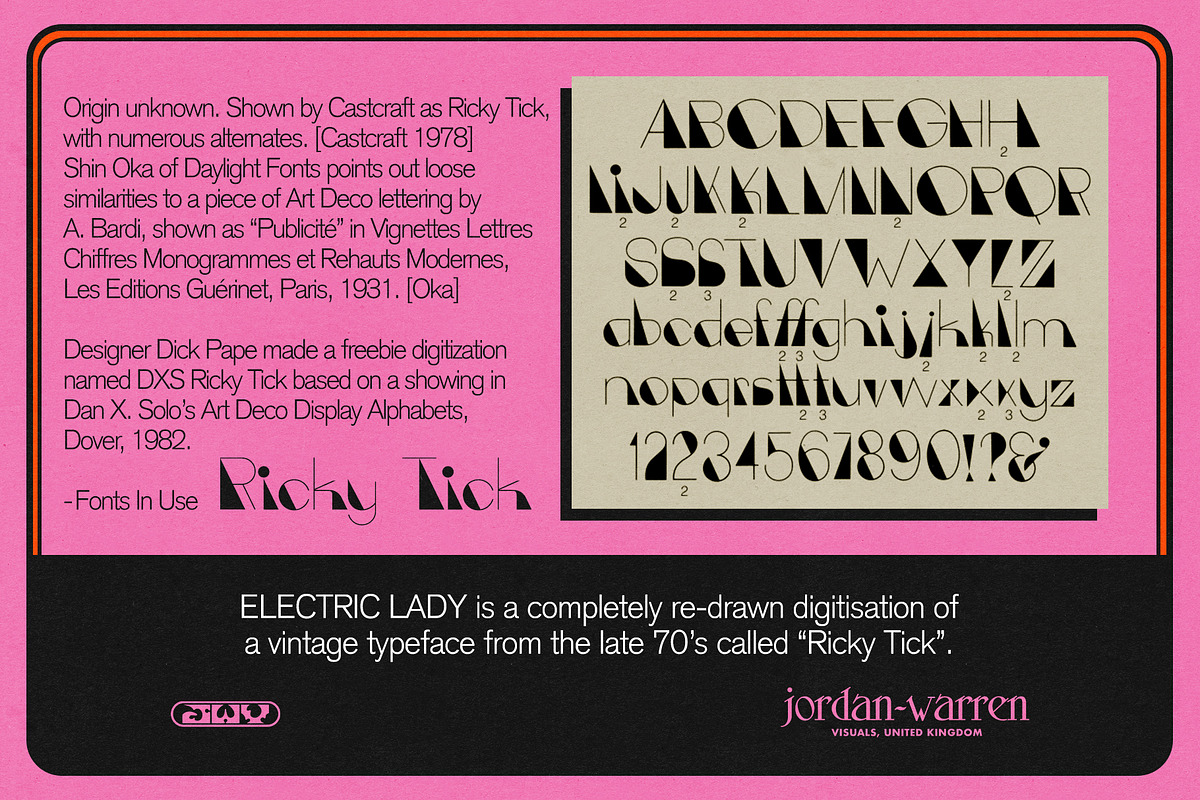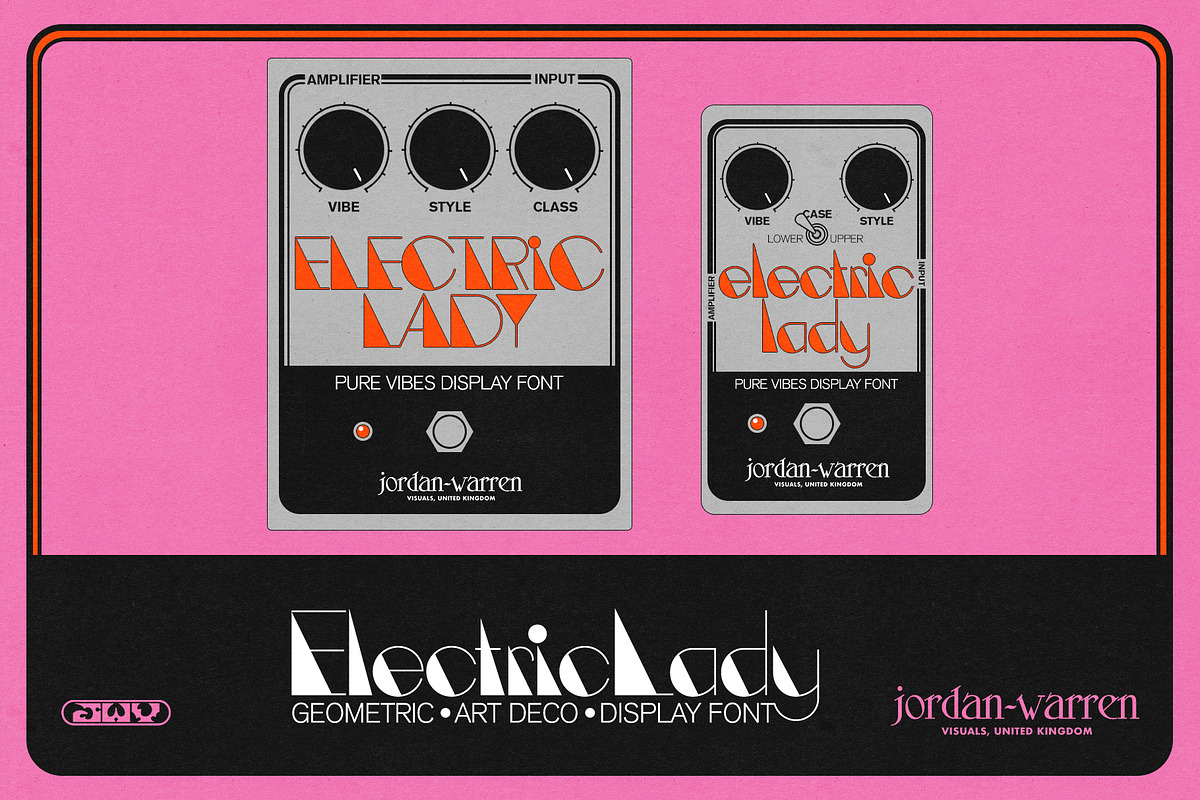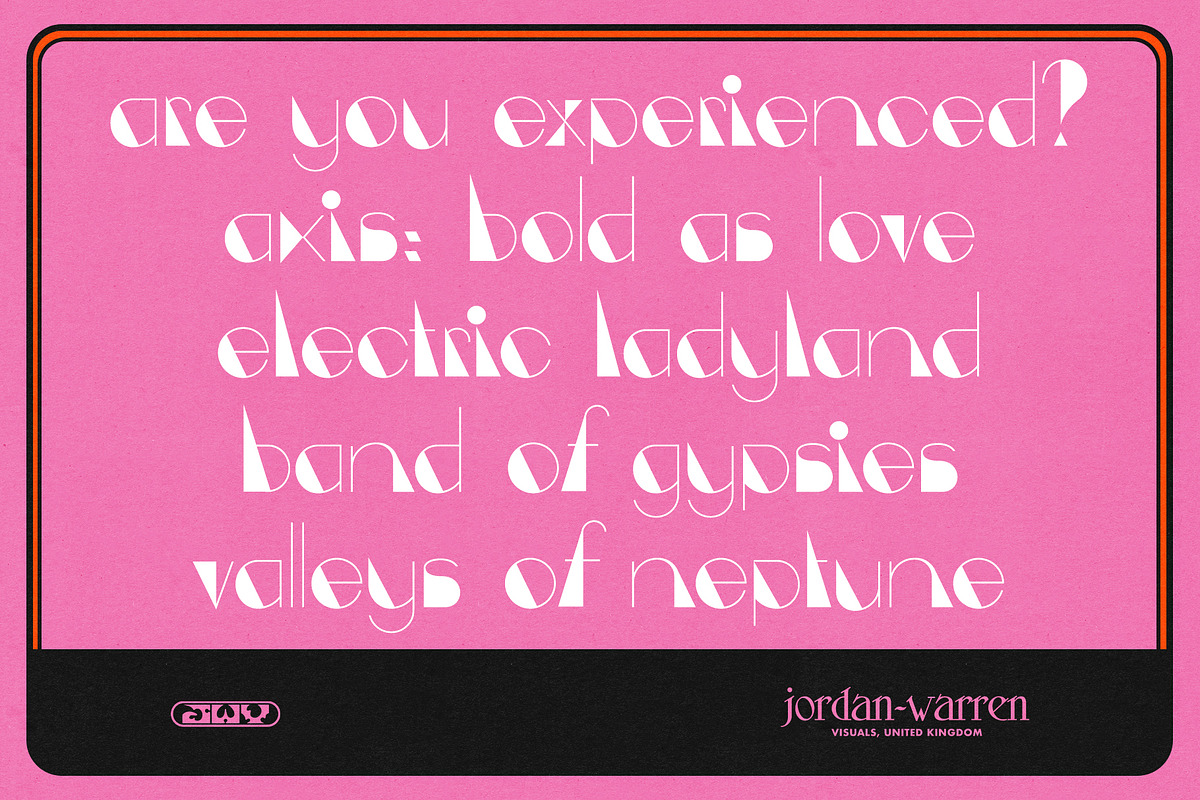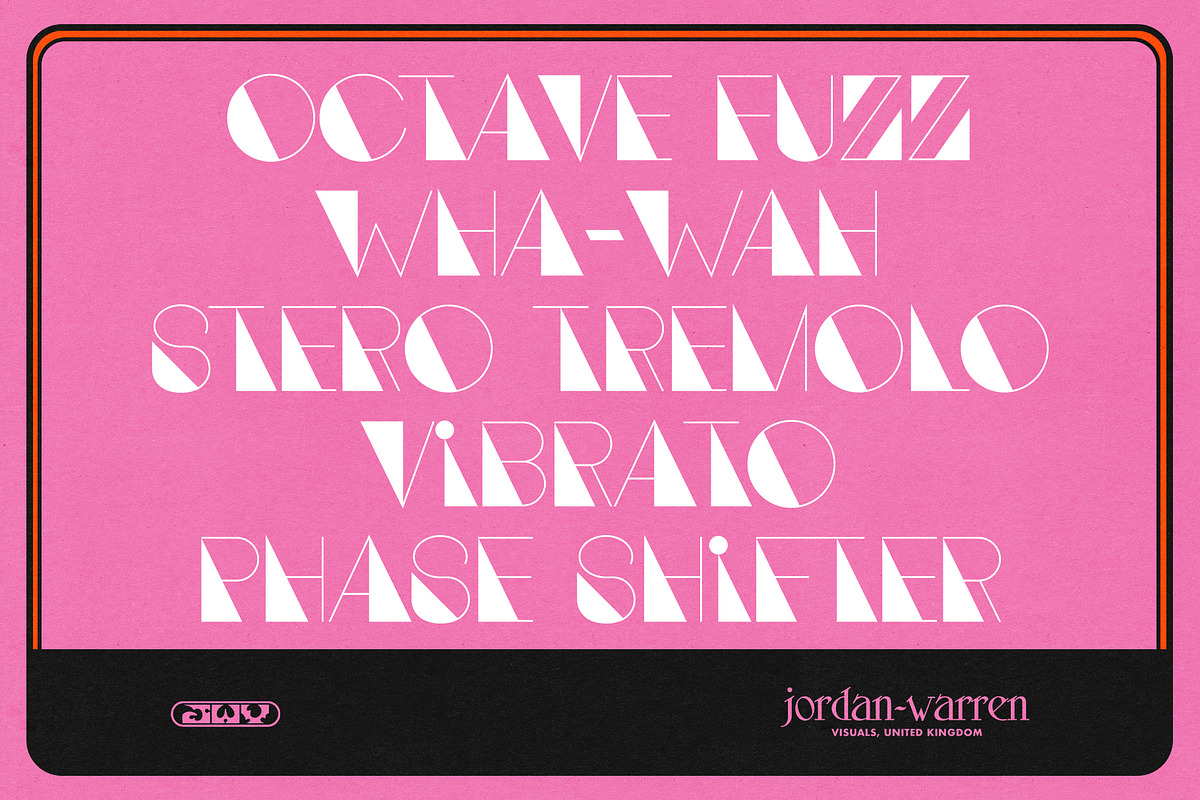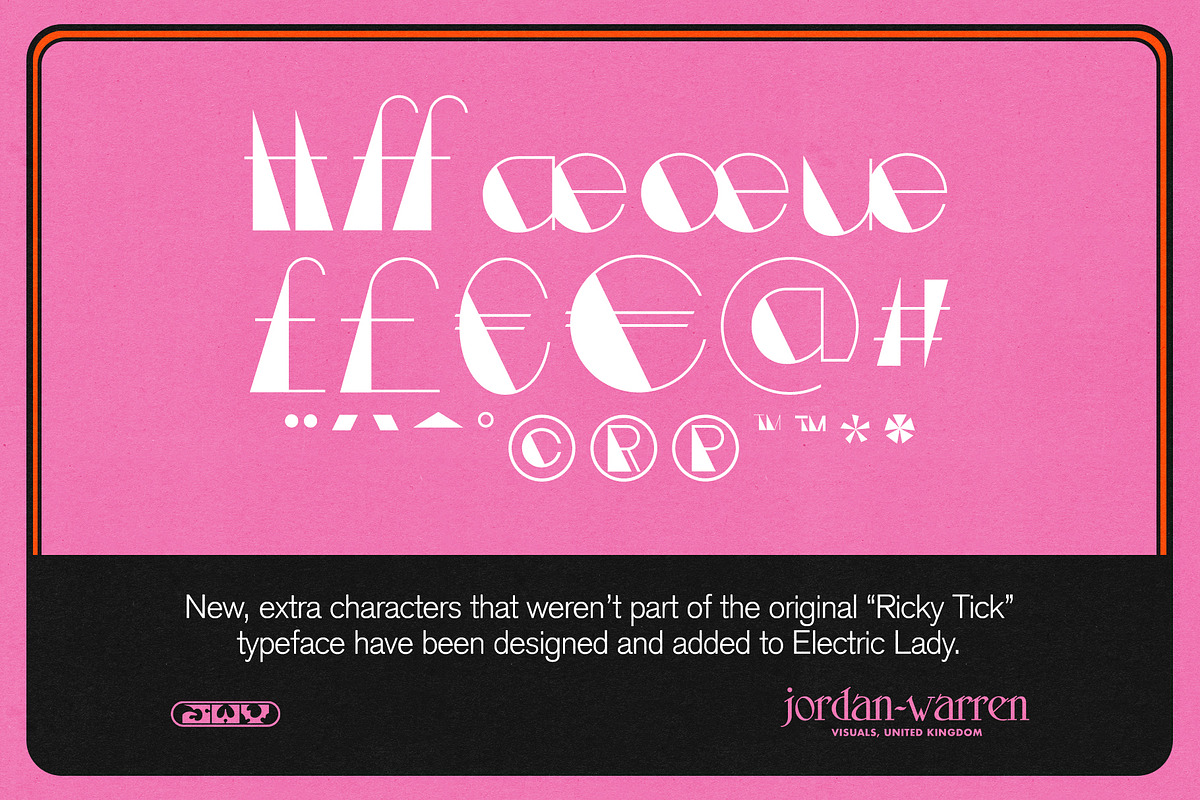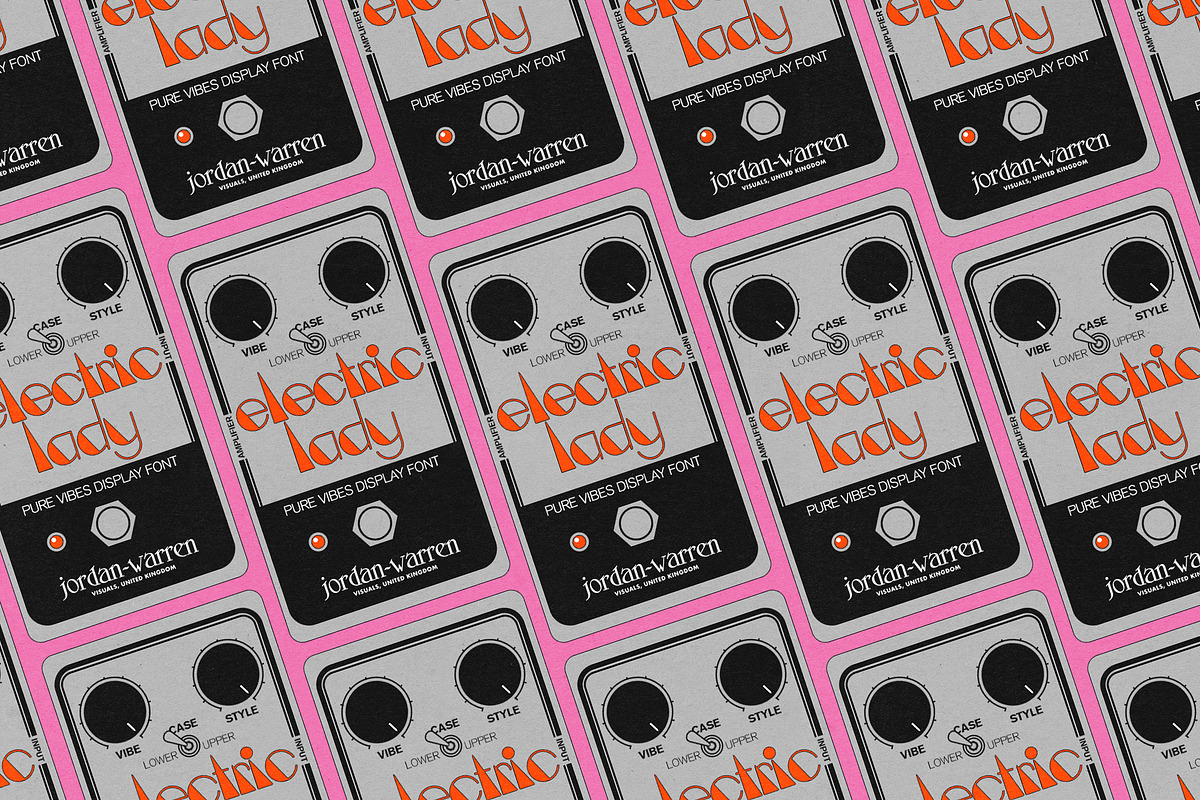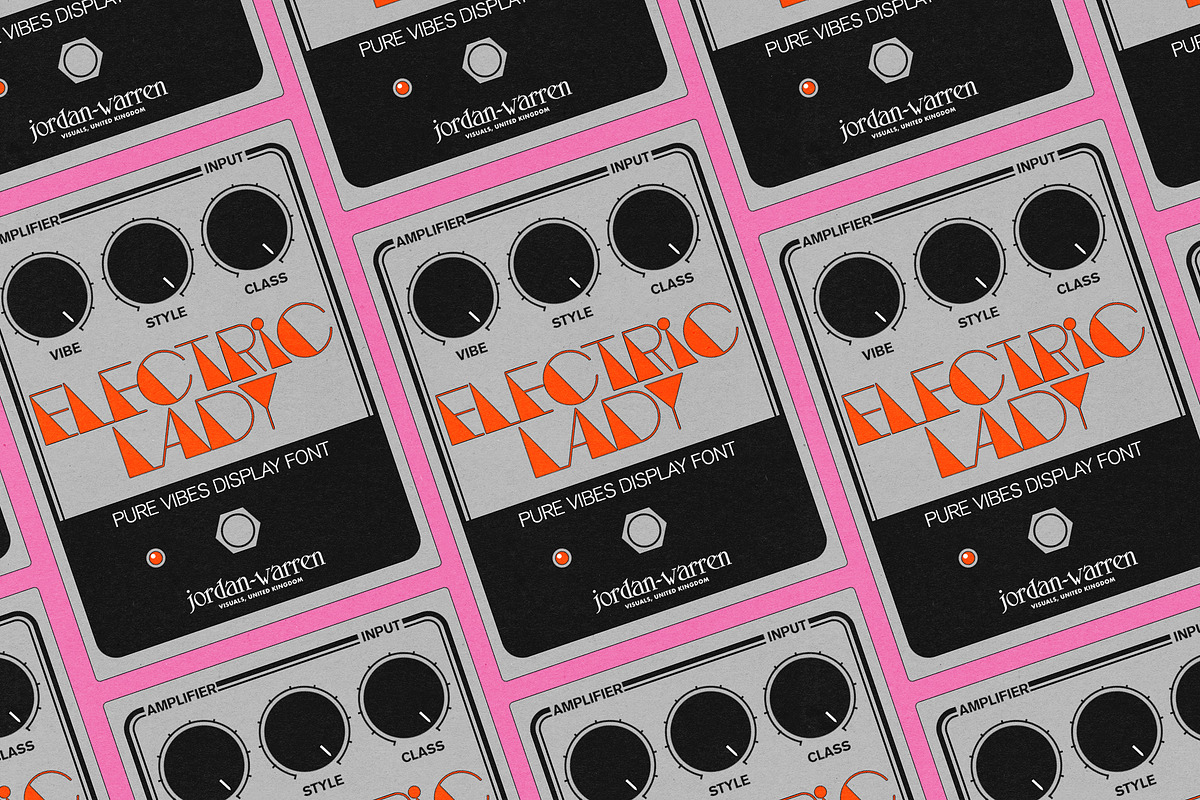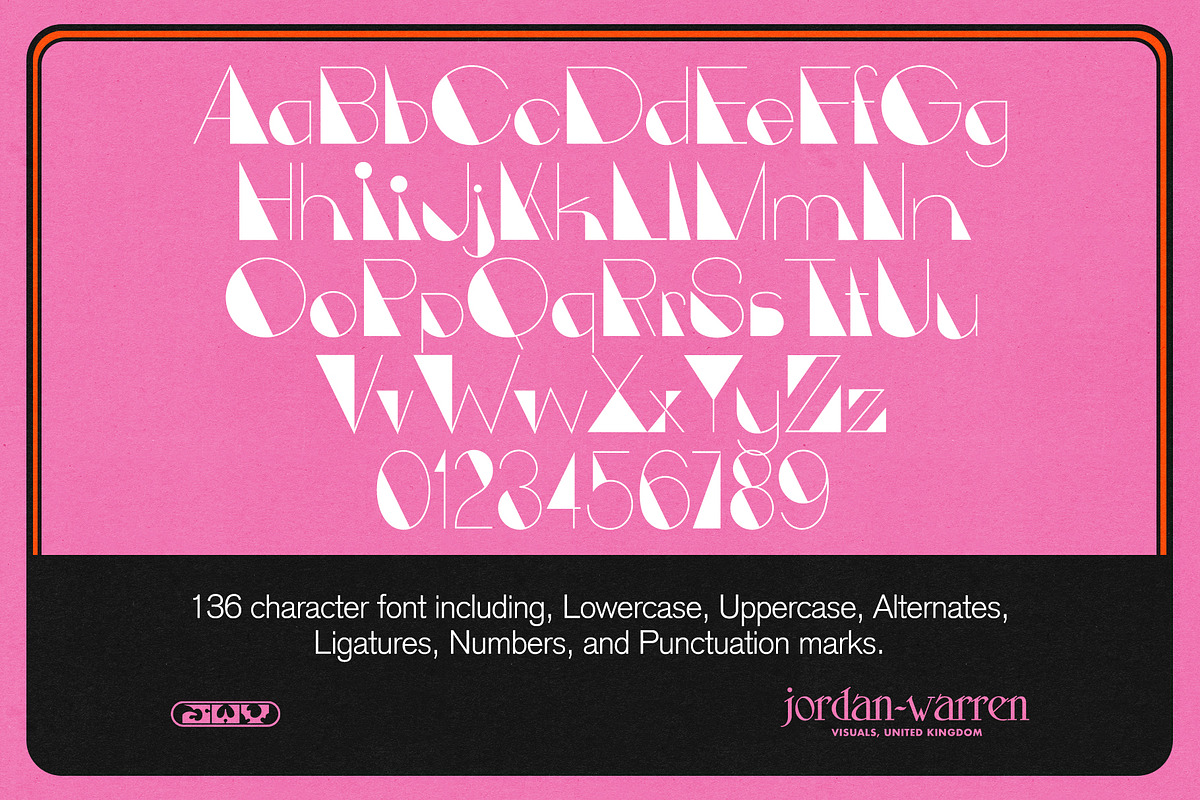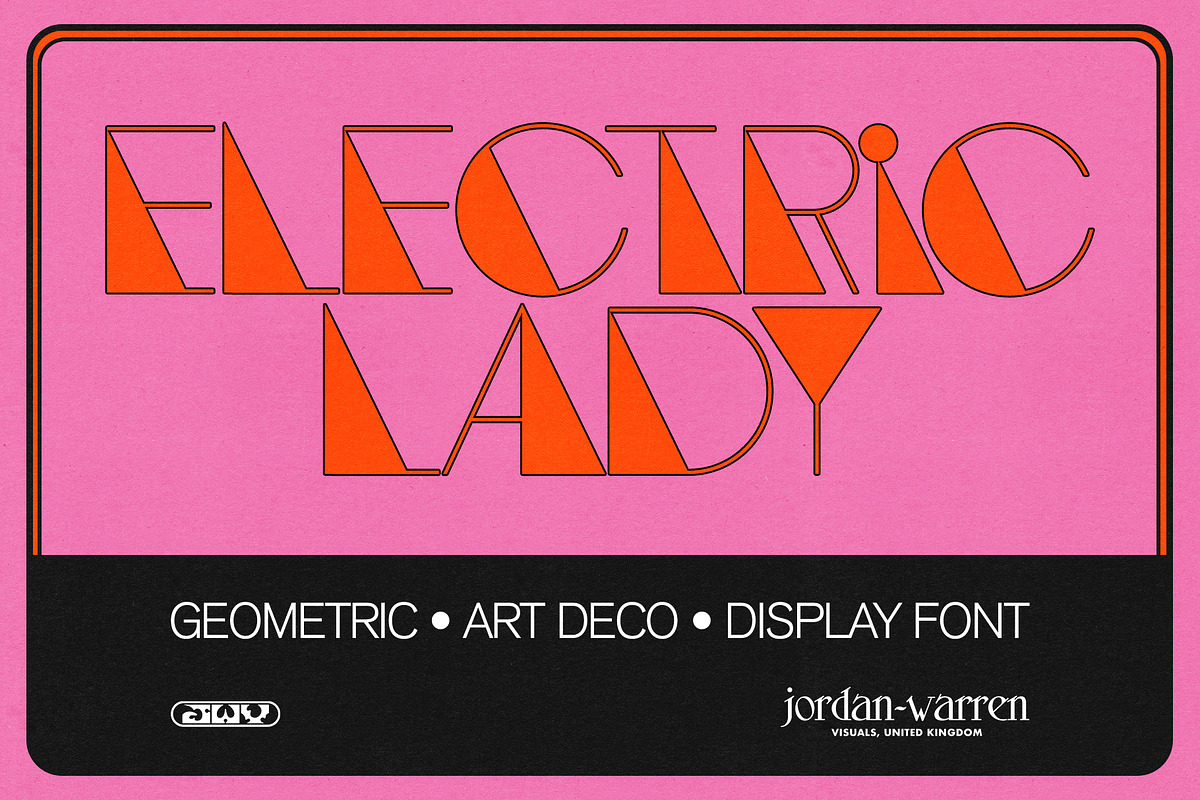
JWV - ELECTRIC LADY
ELECTRIC LADY will add some ZING to your design project!
Electric Lady is a brand new digitisation of a long lost font from the 1970's (possibly even earlier). Originally known as "Ricky Tick", the original designer of the typeface has been lost to time, and until now, the only available version of it in font form [DXS Ricky Tick] is a late 80's/early 90's "image-trace" special (IYKYK).
Electric Lady is a geometric, art deco display font that currently consists of 136 characters. This includes; Capitals, lower case, numerals, punctuation, ligatures, and a whole host of alternatives.
Some of the original characters have been swapped with their alternatives to add to the fonts legibility or to inject some extra character (e.g - the uppercase 'I').